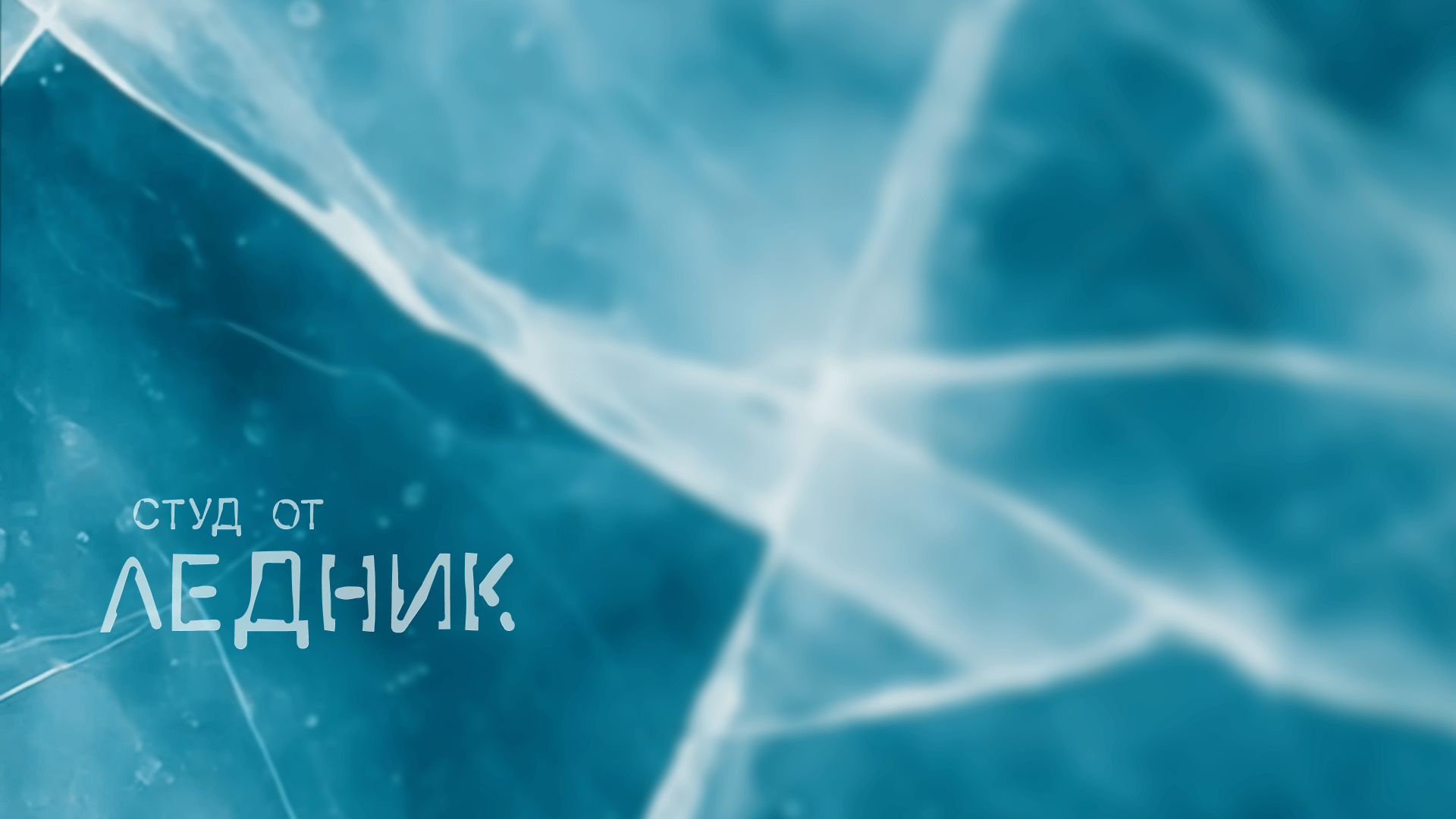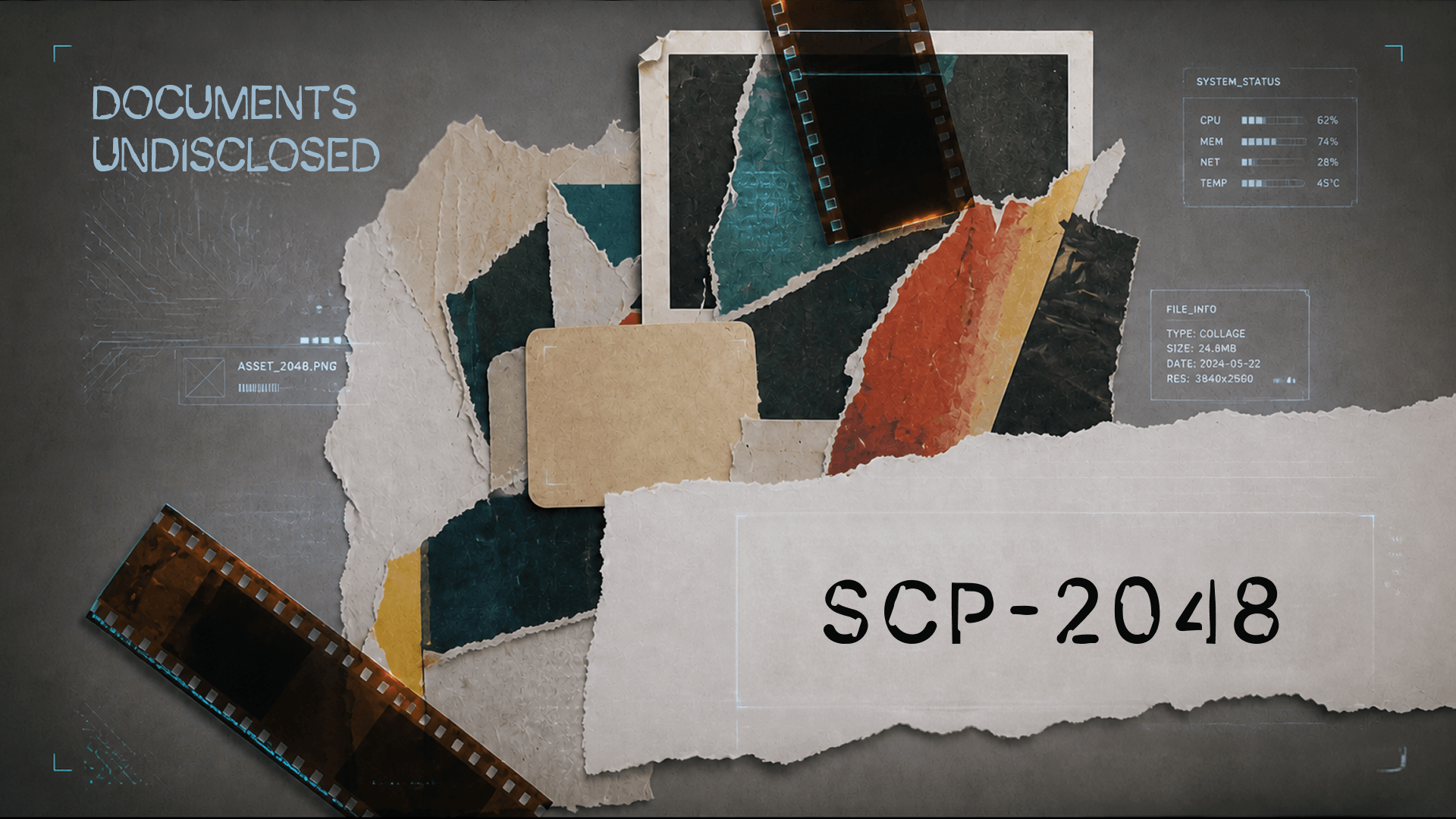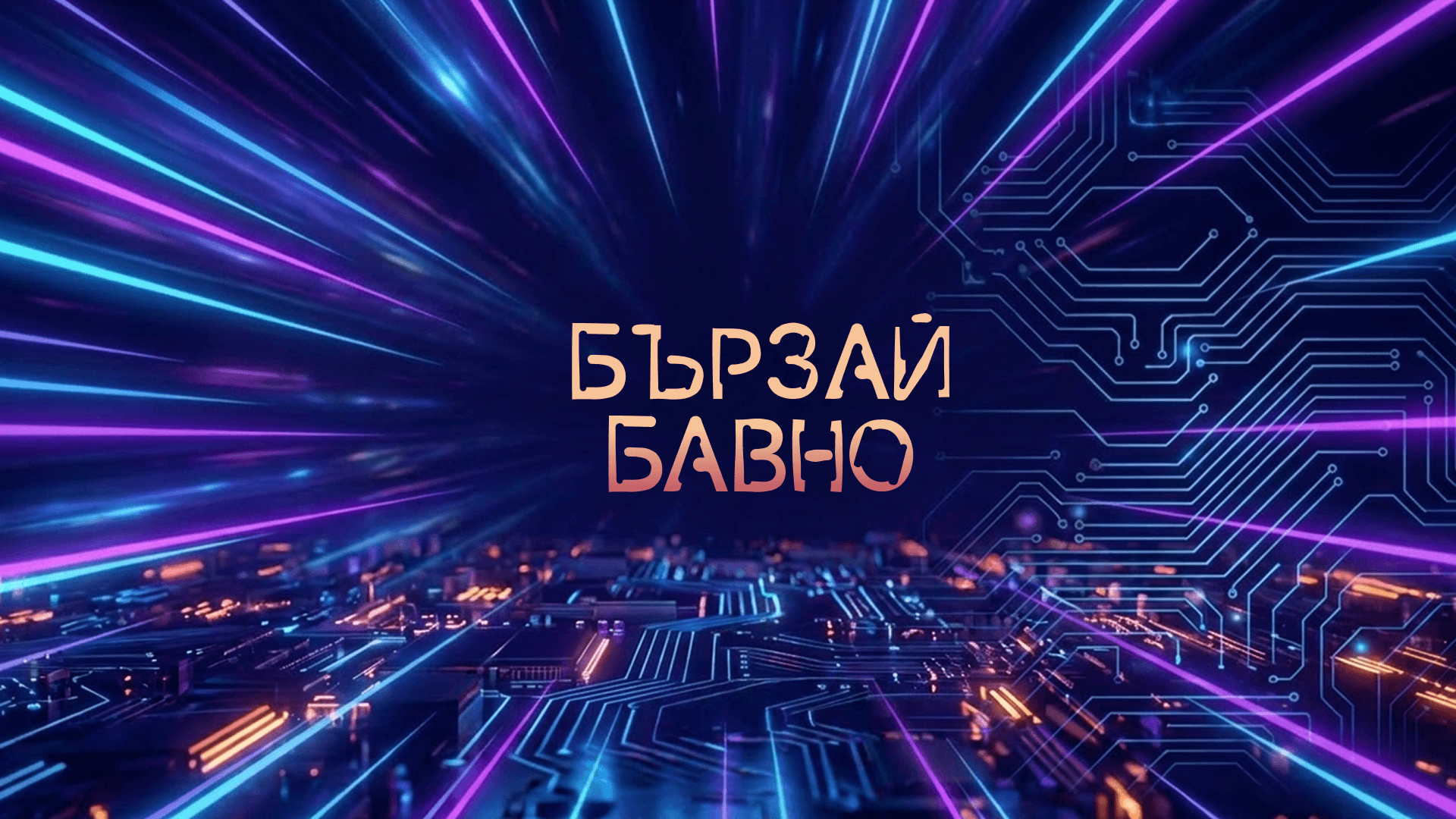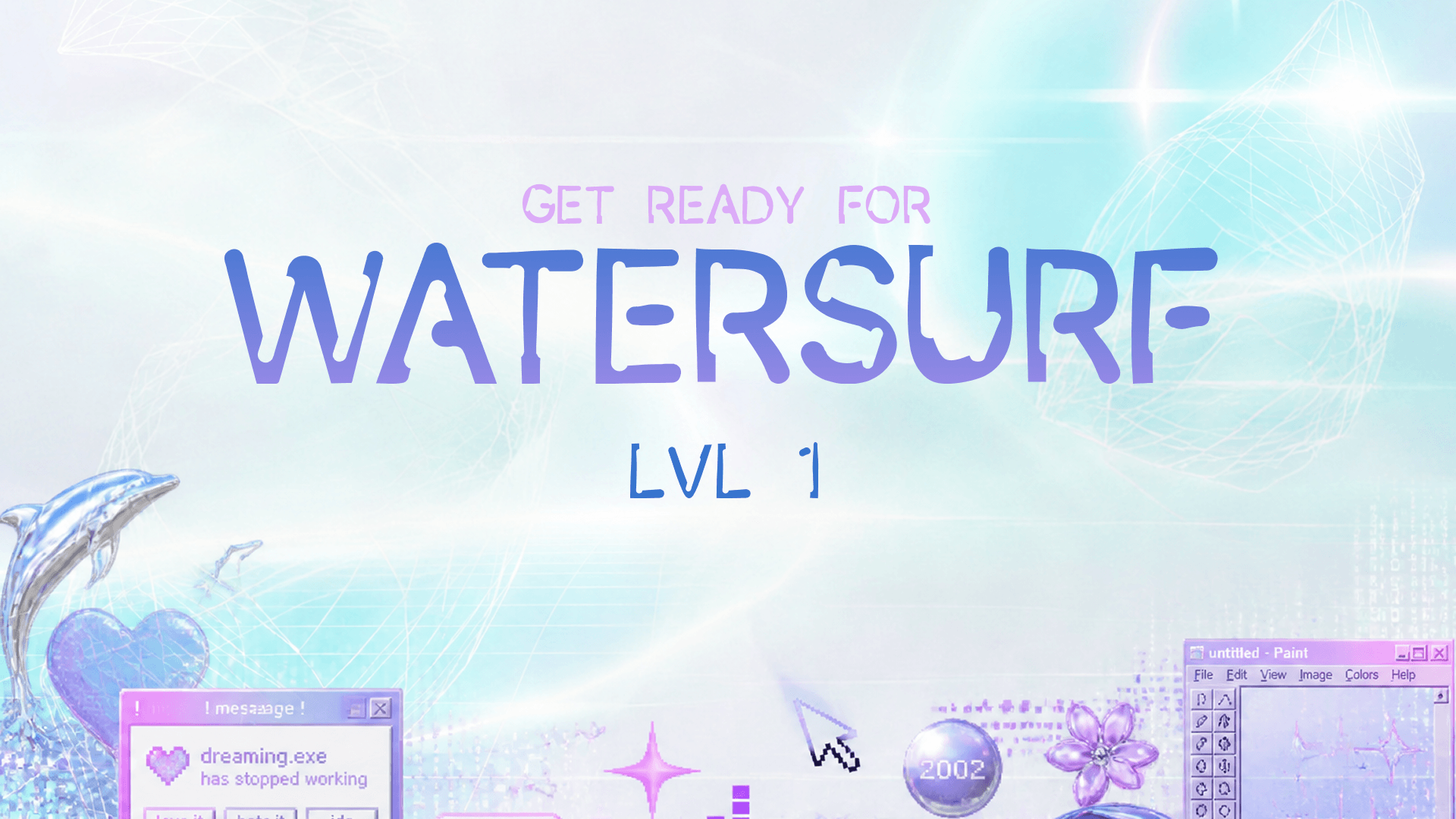
| Family Name | Artefakt |
| Designed By | WORSHIP |
| Category | sans-serif |
| Languages | Latin and Cyrillic |
Artefakt is a broken and beaten font, it doesn't have a place to fit. Punctured and rhythmic in its damage, this experimental typeface embraces an outcast identity, deliberately excluding itself from being the SAFE or preferred choice for any project. It's an intentional study in not belonging - being in the wrong time, at the wrong place.
Artefakt supports both Latin and Bulgarian Cyrillic alphabets, giving its destroyed texture reach across multilingual designs. Its corrupted shapes suit long paragraph text as well as short 2-3 word statements.
This experimental broken aesthetic fits into Y2K-aesthetic interfaces, SCP-style mystery and thriller visuals, video game title screens, and any project chasing an unsettled or otherwise out of place style.